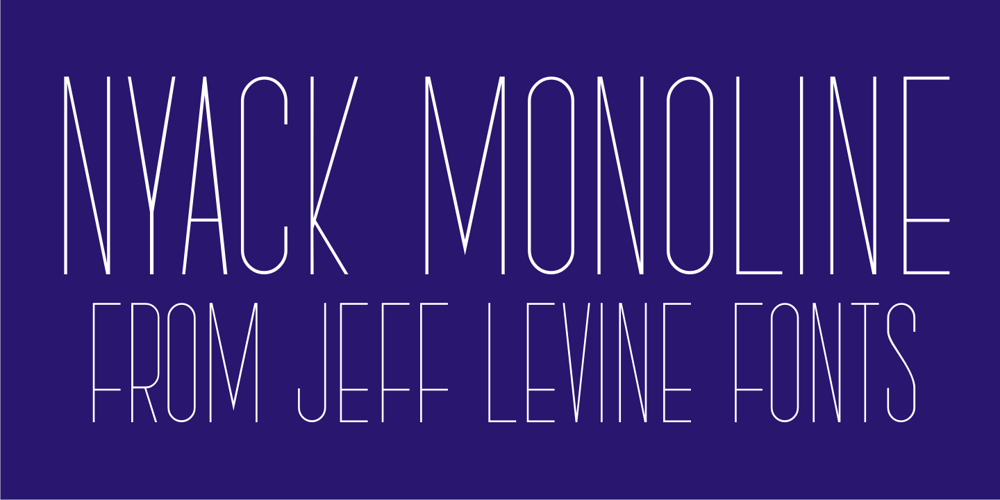
Nyack Monoline JNL
Nyack Monoline JNL font
Nyack Monoline JNL Font Family was designed by Jeff Levine and published by Jeff Levine. Nyack Monoline JNL contains 1 styles and family package options. Nyack Monoline JNL is the drawn-from-scratch alphabet by Jeff Levine that served as the basis for Nyack Inline JNL and Nyack Solid JNL. Its delicate, thin lines were too good to leave unreleased, and it’s a perfect companion to the other versions.